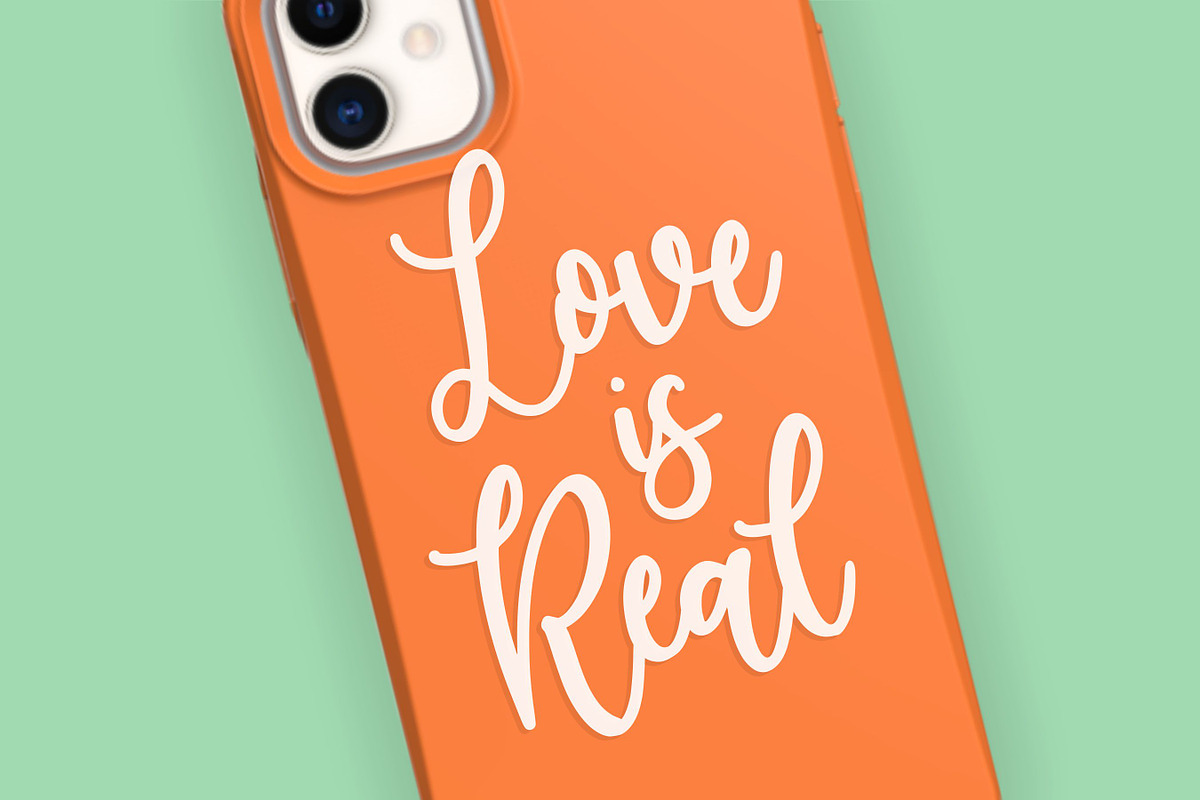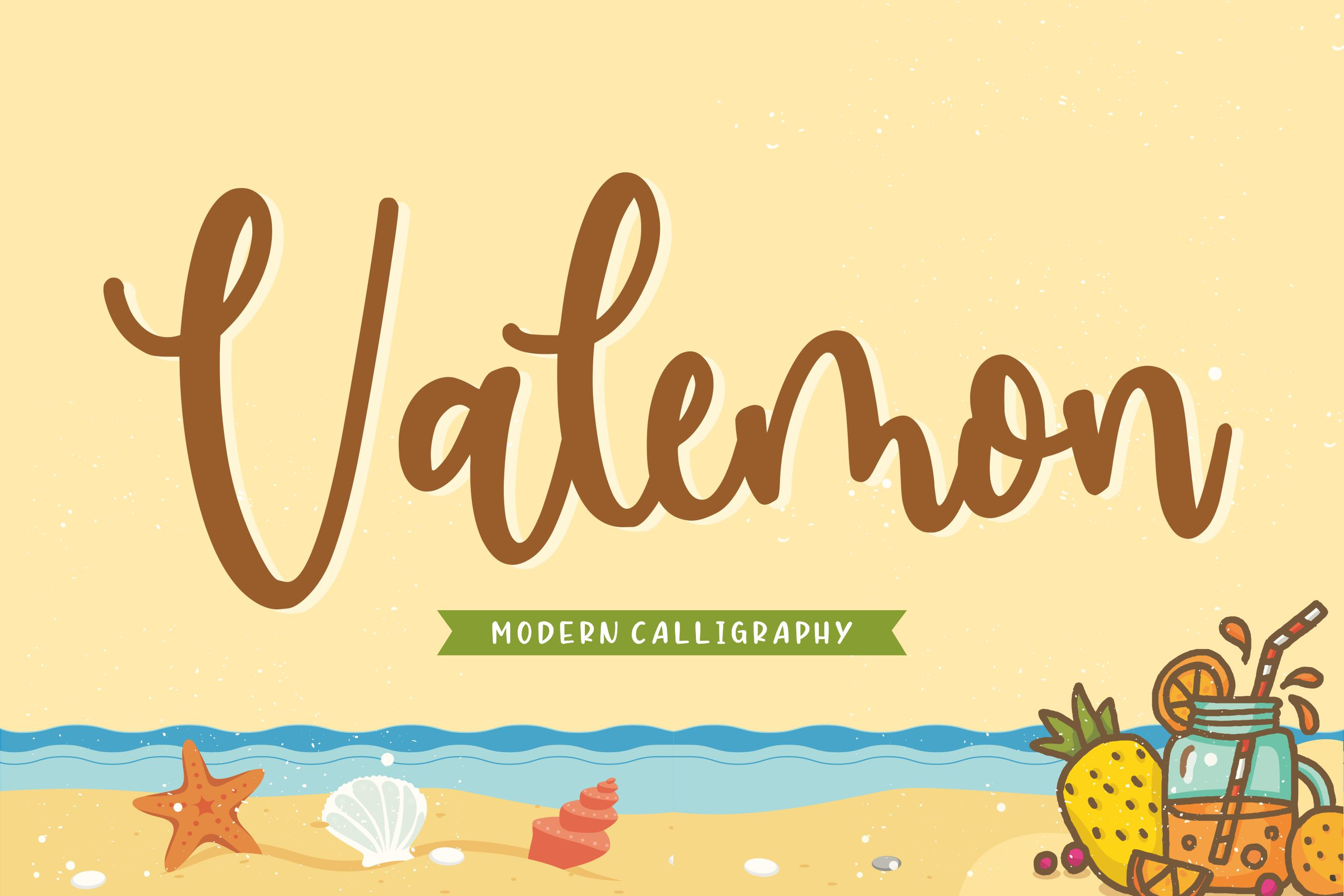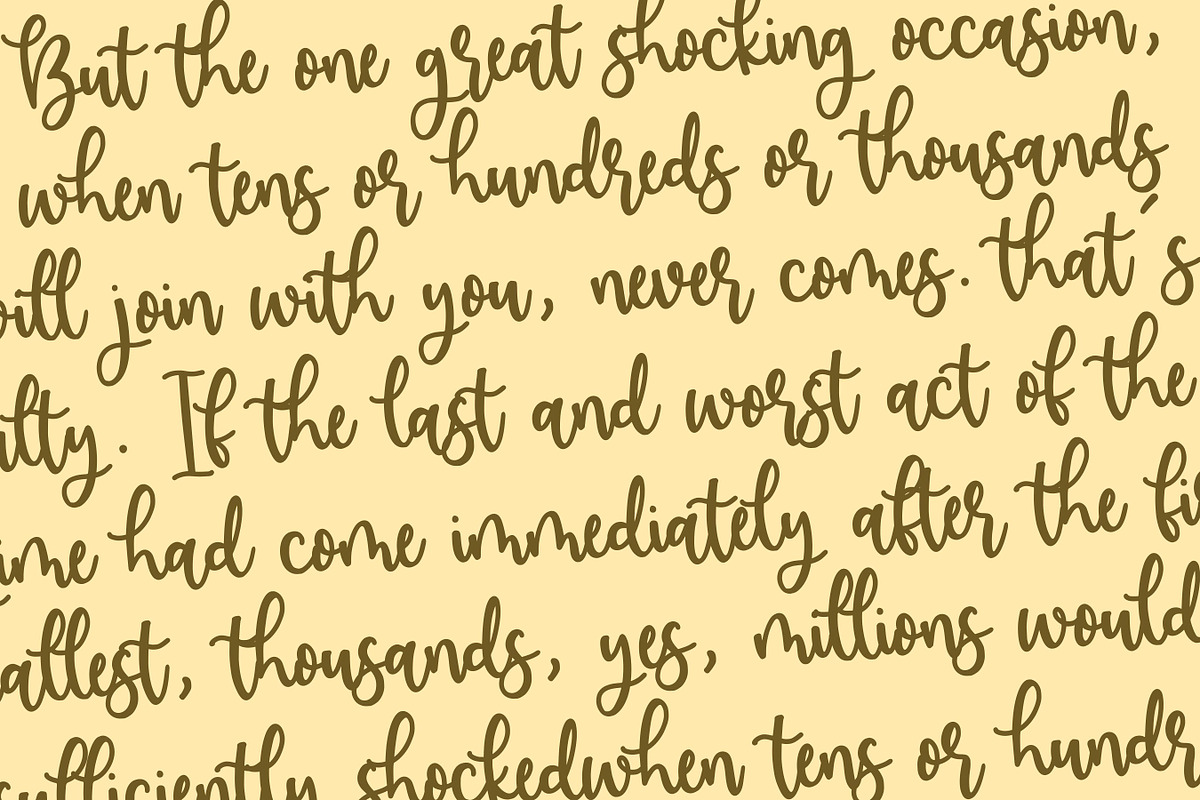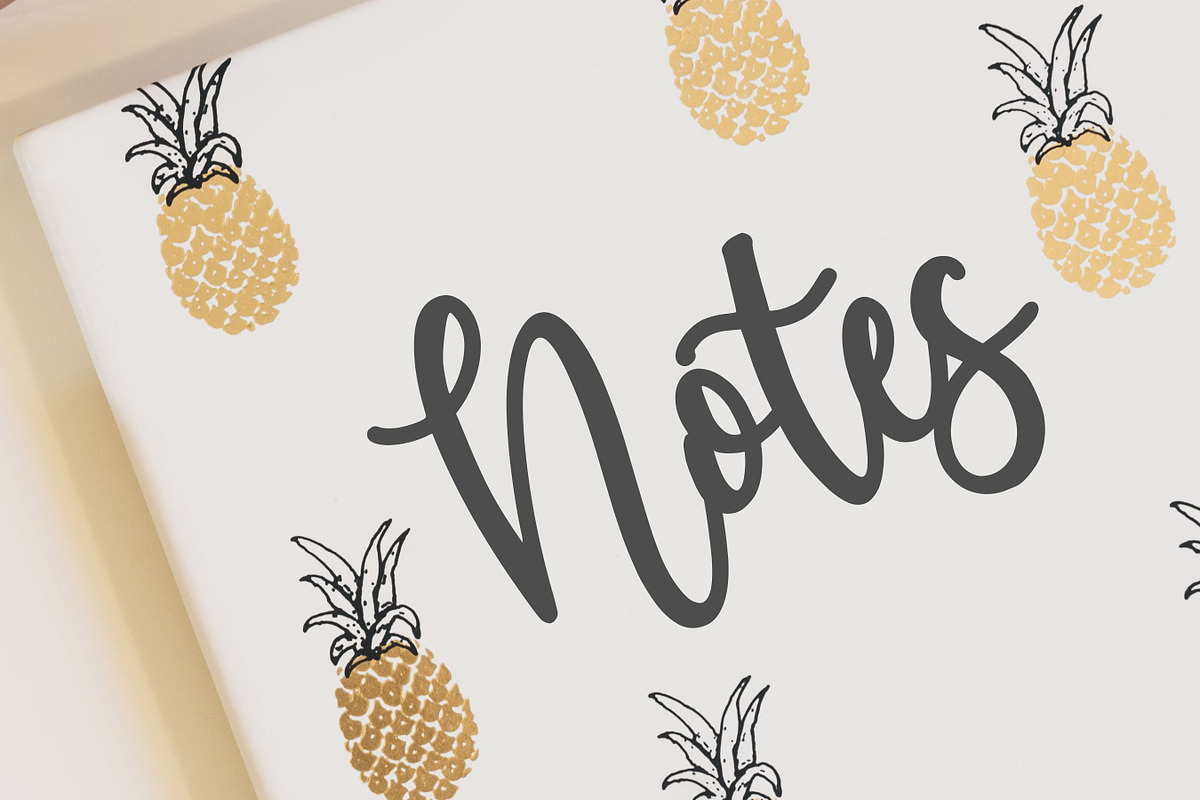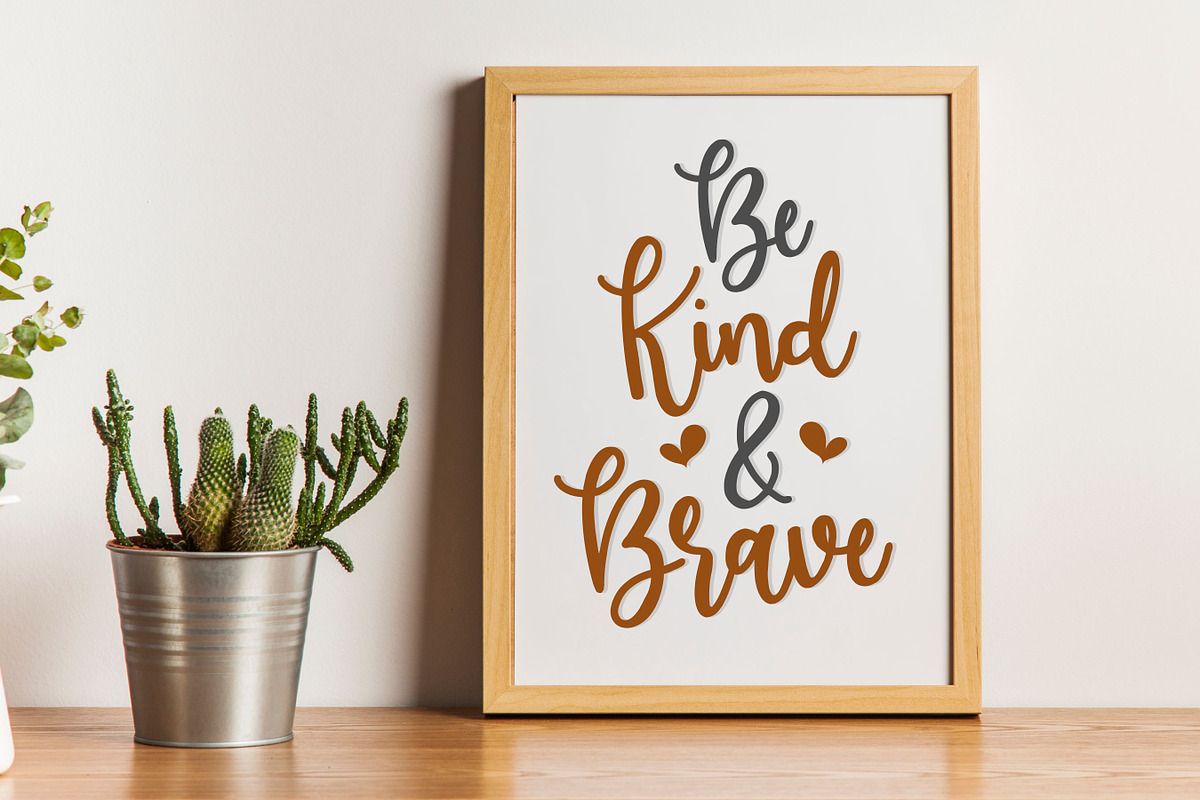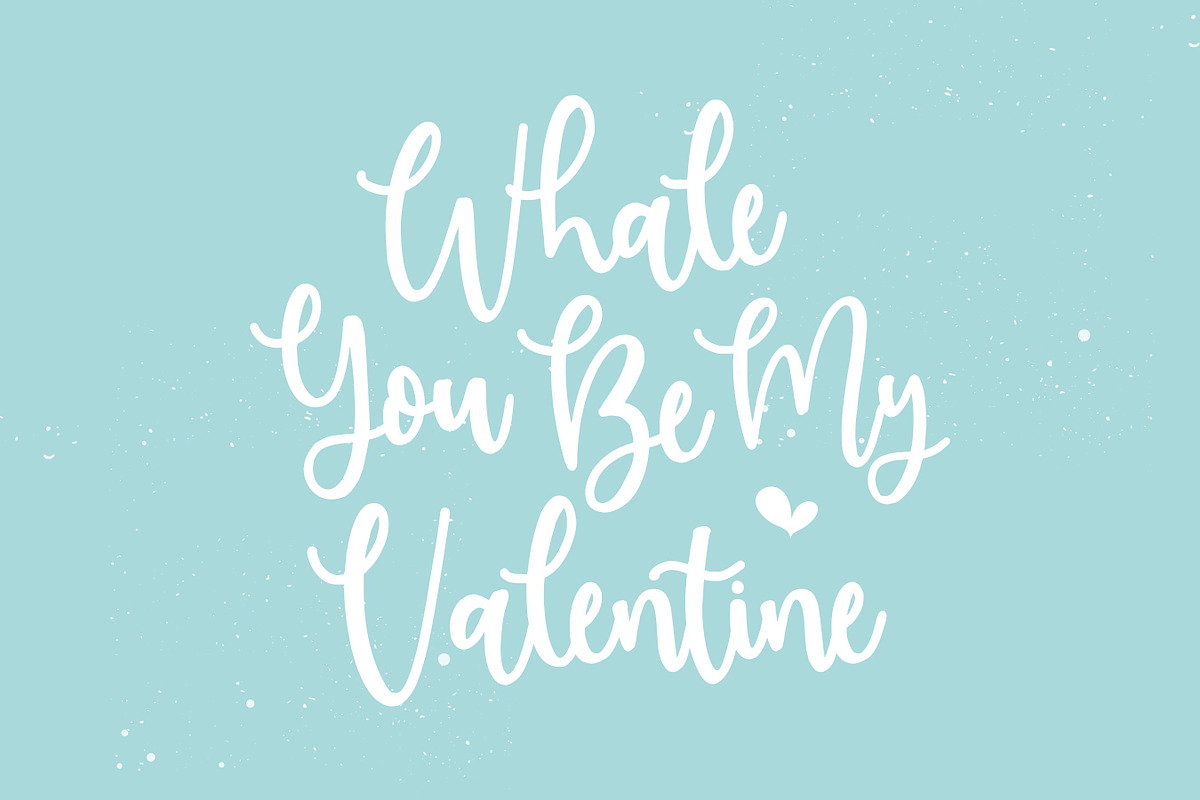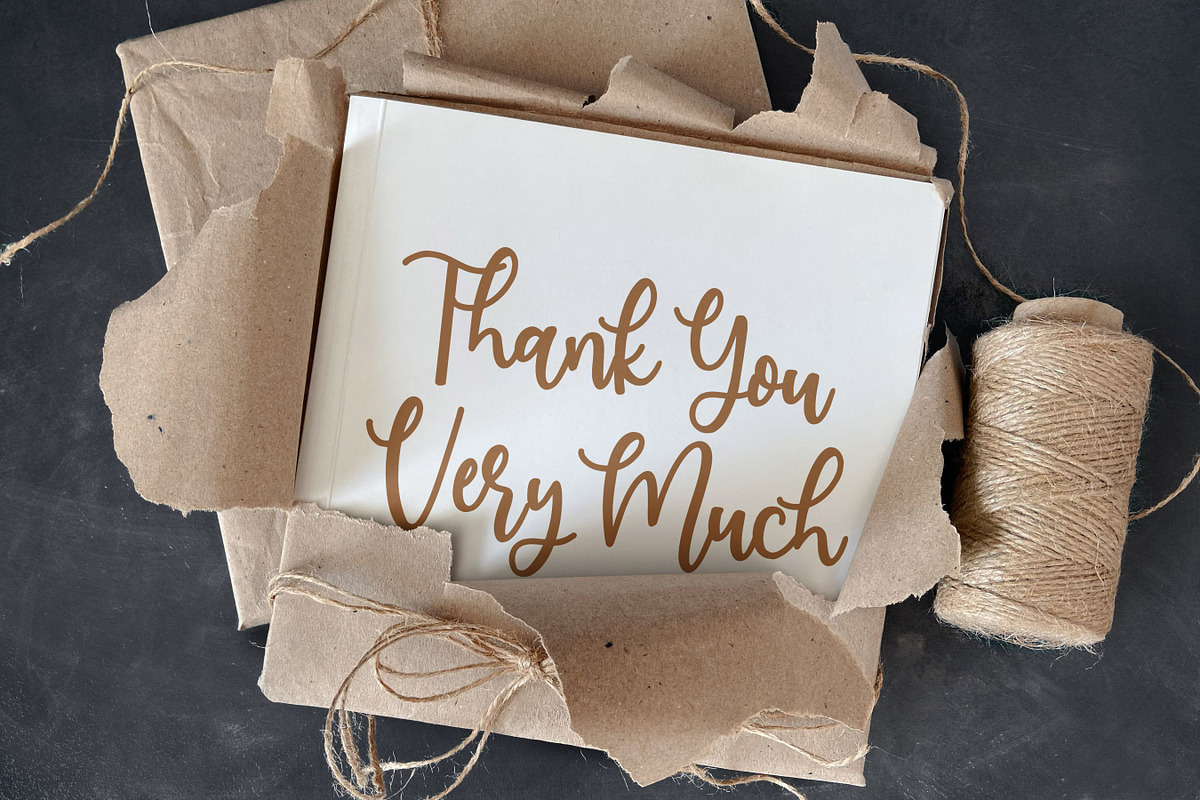
Valemon - Modern Calligraphy Font
Proudly Present, Valemon Font
Valemon is a fancy handwritten fonts. It features gorgeous ligatures that make this script incredibly versatile. Whether you’re looking for fonts for Instagram or calligraphy scripts for DIY projects, Valemon will turn any creative idea into a true piece of art!